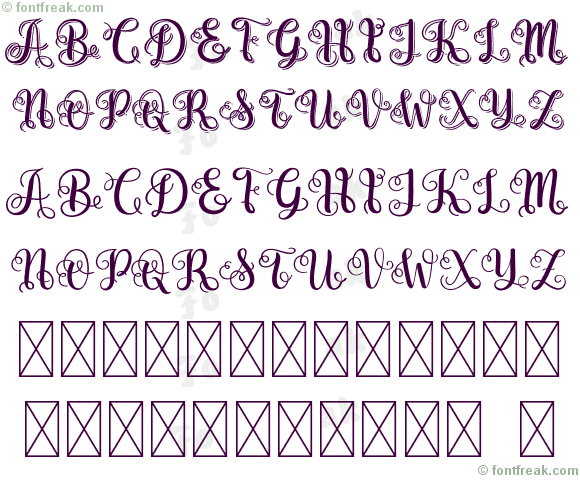
SwirlyLettersRegular
About SwirlyLettersRegular
SwirlyLettersRegular, designed by Mukhlis Muhammad in 2020, is a stunning script font that captivates with its intricate and flowing aesthetic. This decorative typeface exhibits a delicate balance of elegance and whimsy, characterized by its thin, graceful lines and soft curves. The strokes are finely weighted, allowing for a gentle contrast that enhances readability while maintaining an artistic flair. The spacing between characters is thoughtfully designed, ensuring that each letter maintains its individuality while contributing to a cohesive overall appearance. Decorative elements, such as swirls and loops, are integrated seamlessly into the design, adding a touch of sophistication to any text.
This font is particularly well-suited for a variety of creative applications. Its enchanting style makes it an excellent choice for wedding invitations, where the romantic feel can enhance the overall theme. Additionally, SwirlyLettersRegular would shine on greeting cards, providing a personal touch that resonates with recipients. Its unique character also makes it ideal for restaurant menus, especially those aiming for an upscale ambiance, where the font can evoke a sense of fine dining. Graphic designers looking to create eye-catching logos or branding materials will find this font to be a valuable addition to their toolkit, as it effortlessly conveys a sense of creativity and charm.
The target audience for SwirlyLettersRegular includes graphic designers, small business owners, and content creators who are seeking a distinctive typeface to elevate their projects. The font's versatility and artistic quality make it appealing to those looking to make a memorable impression. In conclusion, the SwirlyLettersRegular font free download stands out not just for its visual appeal but also for its ability to transform ordinary text into an extraordinary experience, making it a must-have for any design enthusiast.